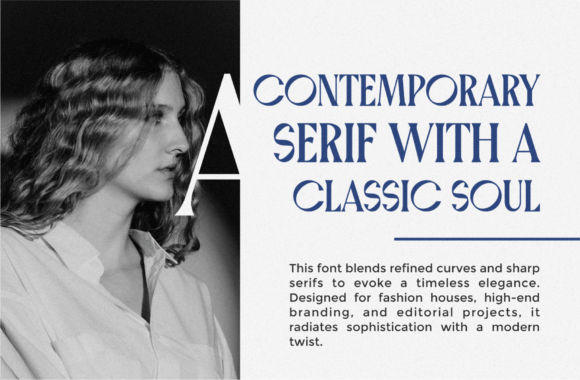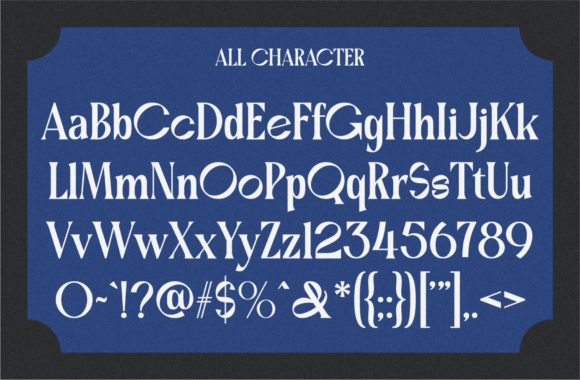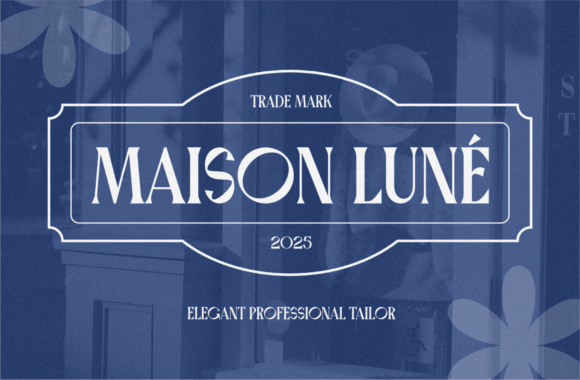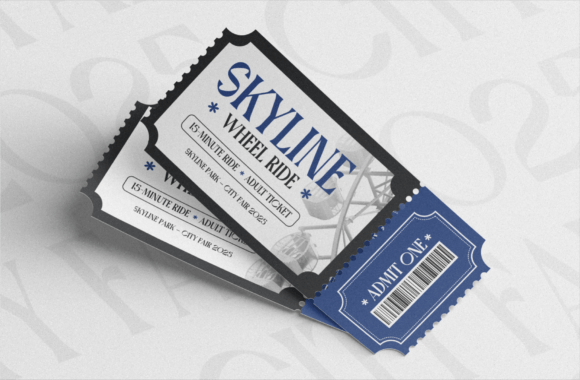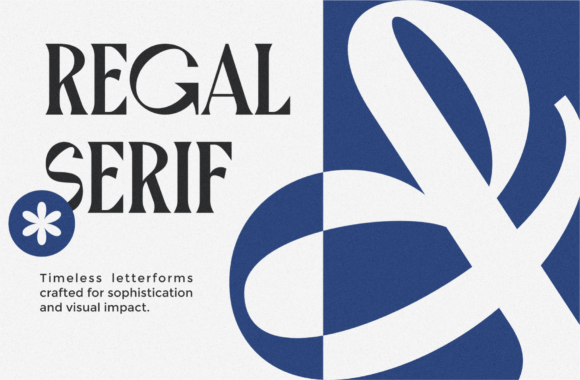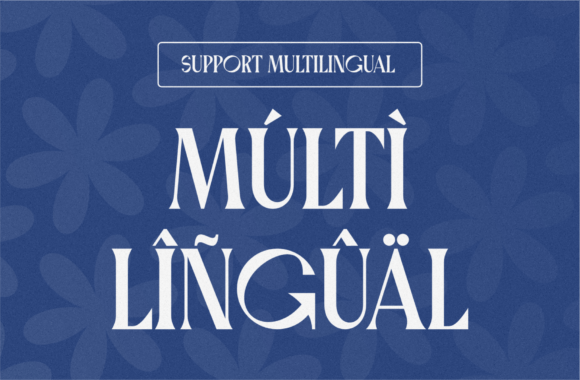
Introduction to Erozi Font
Erozi is a serif display typeface with a sophisticated and modern aesthetic.
Its most striking features are the high contrast between thick and thin strokes and the elegant, fluid curves of its serifs The characters possess a sense of graceful movement, with wide, open forms that create a strong presence on the page.